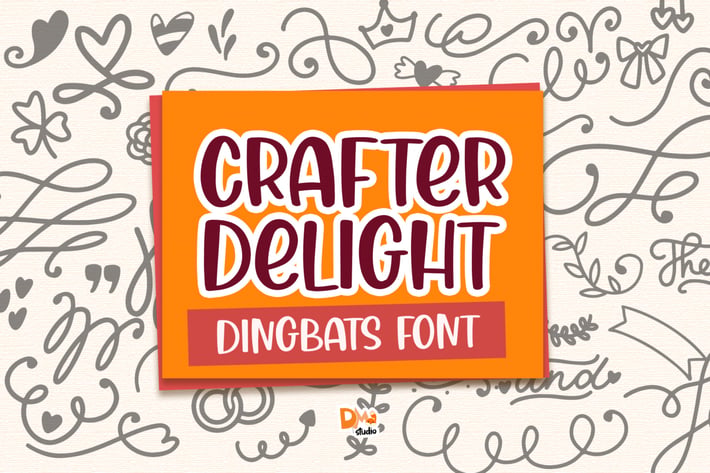
Crafter Delight Dingbats Font
Crafter Delight Dingbats is a collections of 62 cute and lovely doodles in one font.
This font made for you who loves crafting, making DIY projects, printing, quotes and svg design,
It makes easier because you only type on your software application and get fun in your design!
Total 62 cute doodles
-Uppercase 26
-Lowercase 26
-Numeric 10